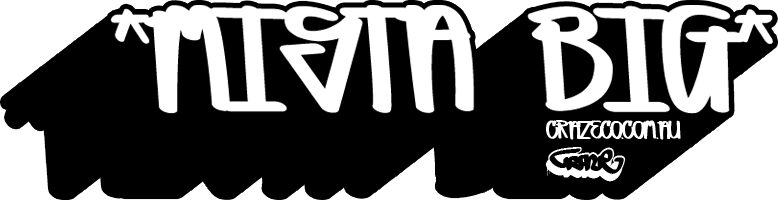
Mista Big by The Craze Co. is a free graffiti display font with the force of a thick marker tag. Letters crowd into a broad, tangled silhouette with rounded strokes and narrow joins. Uneven curves and abrupt cut-ins keep the lettering raw and restless.
Streetwear and underground music audiences will recognize its hand-drawn tagging character, making it useful for apparel graphics, album covers, and event posters. In skate graphics and mural-themed branding, the interlocked forms can become part of an illustrated tag or badge rather than neutral text.